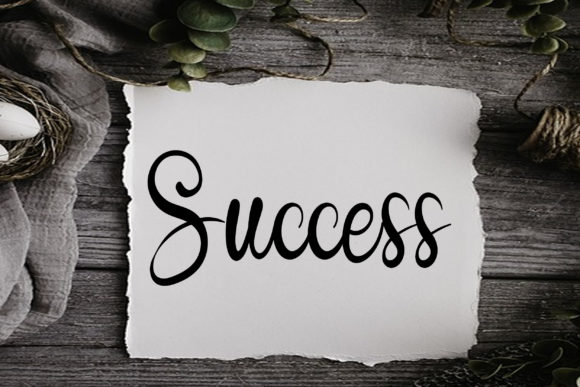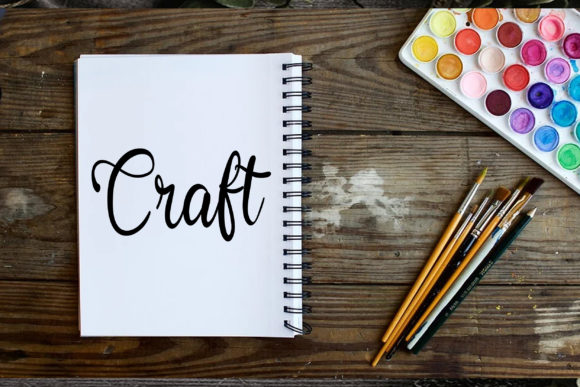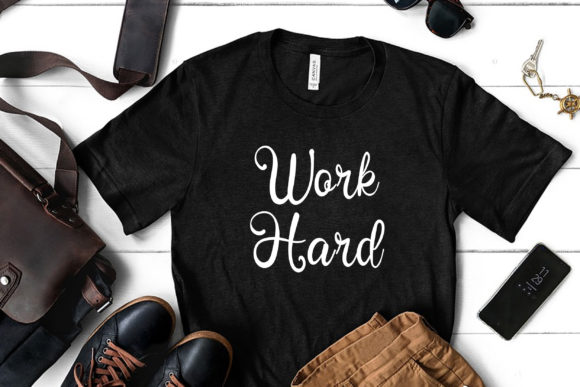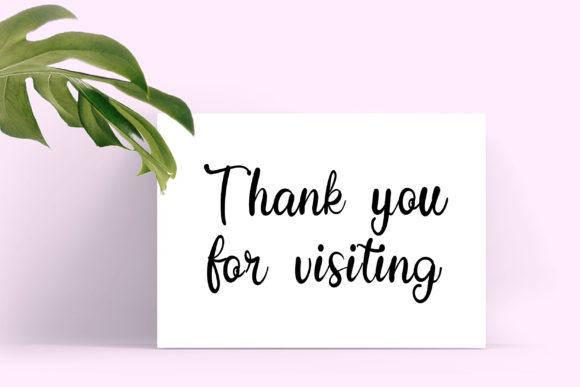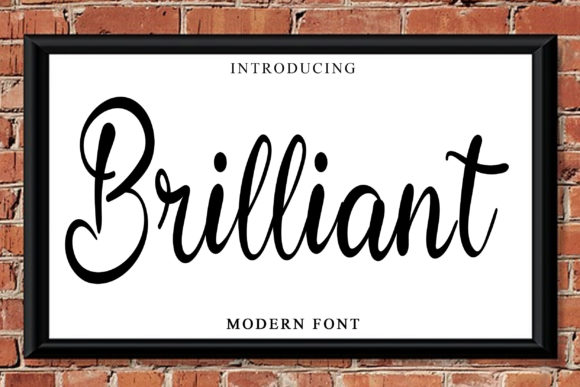
Discover the Brilliance of Brilliant Font: Elevate Your Designs with Elegance and Simplicity
In the world of design, the right font can make all the difference. It’s not just about conveying a message; it’s about doing so with style and impact. For designers, crafters, and businesses looking to elevate their visual identity, the Brilliant Font emerges as a game-changer. This fresh and beautiful font is tailor-made for a variety of design purposes, including YouTube banners, cover logo mockups, wedding invitations, ID cards, flyers, and crafts. Let’s dive into what makes the Brilliant Font a must-have in your design arsenal.
Unleash Your Creativity with a Fresh and Beautiful Font
The Brilliant Font is more than just a typeface; it’s a design solution that brings a touch of elegance and sophistication to any project. Its unique blend of simplicity and distinctiveness ensures that your designs stand out in a crowded digital landscape. Whether you’re working on a professional project or a personal craft, this font provides the perfect balance of aesthetic appeal and readability.
One of the key advantages of the Brilliant Font is its versatility. It’s incredibly adaptable, making it suitable for a wide range of applications. Here are some of the ways you can use this fantastic font:
- YouTube Banners: Make a strong first impression with your YouTube channel’s banner. The Brilliant Font can help you create a banner that’s not only visually appealing but also communicates your channel’s personality.
- Cover Logo Mockups: Give your logo designs a professional edge with this elegant font. It’s perfect for creating mockups that showcase your brand’s identity.
- Wedding Invitations: Add a touch of romance and sophistication to your wedding invitations. The Brilliant Font’s beautiful design makes it ideal for conveying the joy and significance of your special day.
- ID Cards: For businesses and organizations, creating ID cards that are both functional and visually appealing is crucial. This font helps you achieve a professional look that’s also engaging.
- Flyers: Whether you’re advertising an event, a product, or a service, the Brilliant Font can help you create flyers that capture attention and communicate your message effectively.
- Crafts: For crafters, this font opens up a world of possibilities. From handmade cards to personalized gifts, the Brilliant Font can add a professional touch to your creations.
Why Choose the Brilliant Font?
So, what sets the Brilliant Font apart from other fonts? Here are a few reasons why designers and crafters are gravitating towards this beautiful typeface:
- Simplicity: Despite its elegant appearance, the Brilliant Font is incredibly simple to read and use. This makes it a great choice for both digital and print designs.
- Uniqueness: In a sea of generic fonts, the Brilliant Font stands out for its unique design. It can help your projects look distinctive and memorable.
- Progress and Development: By incorporating the Brilliant Font into your designs, you’re not just enhancing their aesthetic appeal; you’re also investing in their potential to drive progress and development for your business or personal brand.
The Brilliant Font is more than just a typeface; it’s a design companion that can help you create stunning visuals with ease. Its blend of elegance, simplicity, and uniqueness makes it an invaluable resource for designers and crafters looking to elevate their work. Whether you’re working on a professional project or a personal craft, this beautiful font is sure to bring your designs to life. So, why wait? Discover the brilliance of the Brilliant Font today and take your designs to the next level.